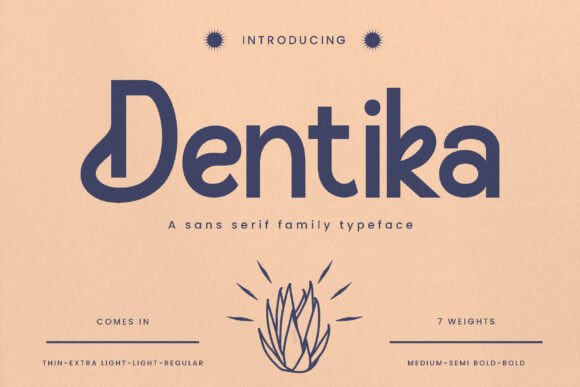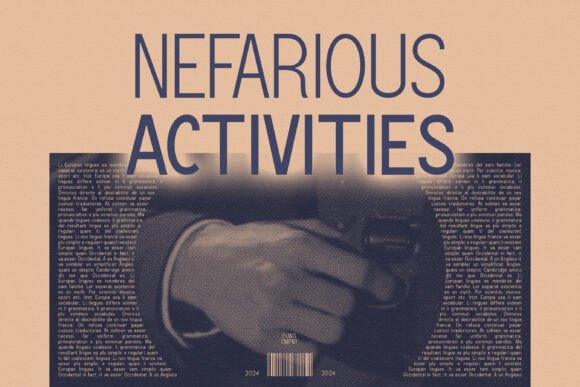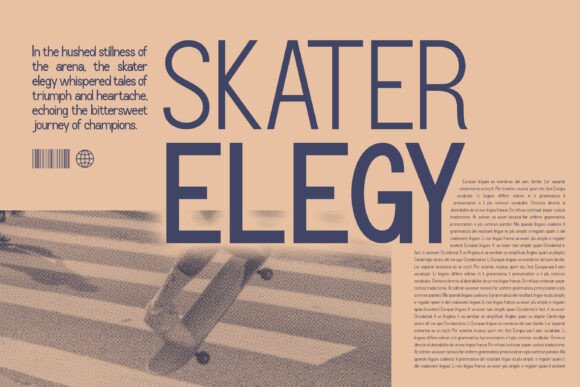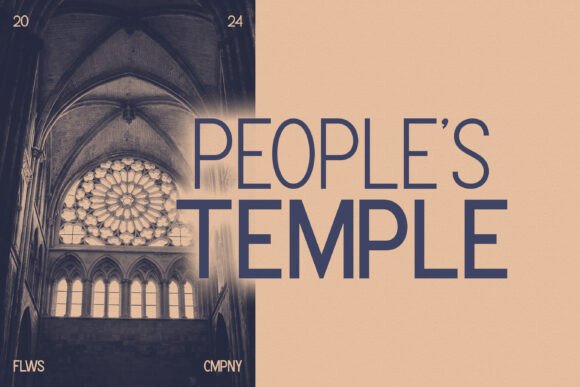
Dentika Font
About the Dentika Font
Make a bold statement with Dentika Font, a powerful and memorable font. Introducing Dentika, a sans-serif font family that exudes sophistication and style. With its clean lines, geometric shapes, and subtle stroke variations, Dentika is perfect for creating a modern and refined look for your branding, web design, and editorial projects. Dentika consists of various weights ranging from thin to bold styles, including thin, extra light, light, regular, medium, semi-bold, and bold.
Dentika’s clean geometry makes it ideal for headlines, logos, and short-form text in branding materials and posters. Its sophistication lends itself well to high-end product packaging and website headers. However, its minimalist nature means it’s less suitable for body text or lengthy paragraphs; the subtle stroke variations might become visually fatiguing at smaller sizes.
For optimal pairing, consider a complementary serif like Garamond for a classic contrast or a playful script like Allura for a touch of elegance. A geometric sans-serif such as Montserrat could also create a cohesive and modern feel. These pairings will enhance Dentika’s inherent modern and refined personality without overwhelming it.
Dentika projects a sophisticated yet approachable feel, best suited for brands seeking a clean, modern, and high-quality aesthetic. Think minimalist fashion, luxury goods, or technology companies.